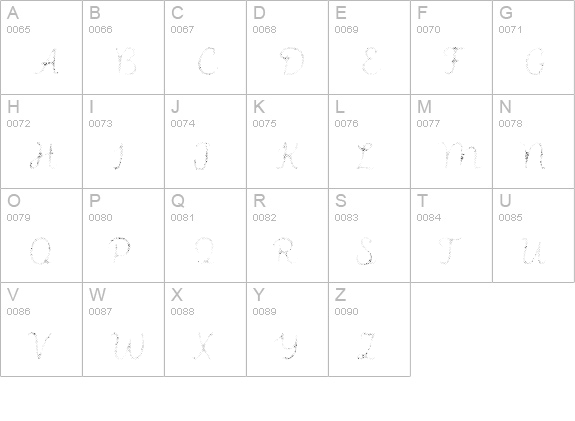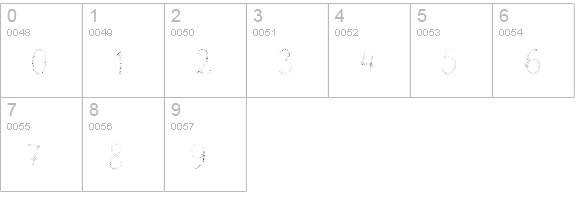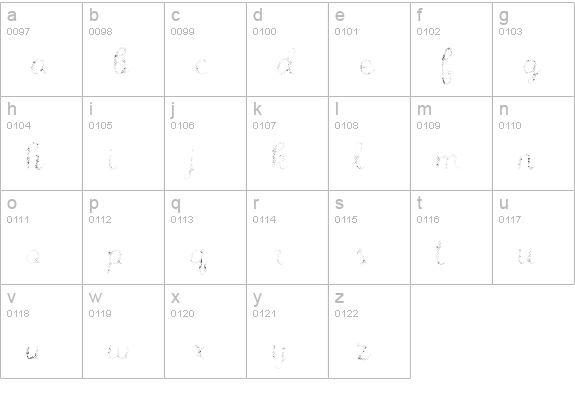
Intro Script B H2 Font Details
Introducing Intro Script B H2 font, a beautifully crafted typeface that exudes elegance and sophistication. With its intricate design and stylish flair, this font is perfect for adding a touch of luxury to your projects. The sleek and modern look of Intro Script B H2 font makes it ideal for a wide range of design applications, from branding to editorial design. And the best part? Intro Script B H2 font is available for free download at FontsMarket.com! Take advantage of this amazing opportunity to enhance your designs with this stunning font without any cost. Elevate your projects with the timeless charm of Intro Script B H2 font today.